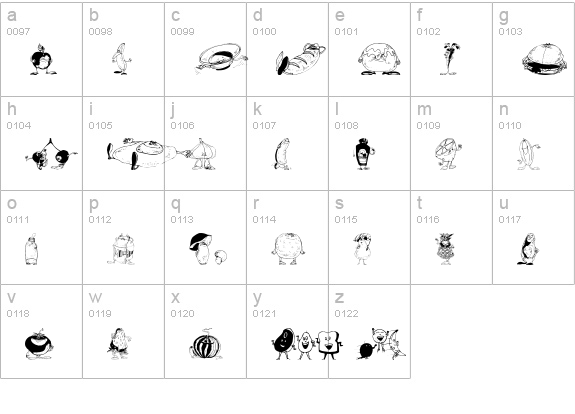
Yummi Font Details
Yummi font is a delightful and charming typeface that brings a touch of whimsy to any design project. With its playful curves and stylish letterforms, Yummi is perfect for adding a fun and friendly vibe to your creations. This versatile font is ideal for a wide range of applications, from branding and packaging to invitations and social media graphics. What makes Yummi font even more appealing is that it is available for free download at FontsMarket.com. This means that you can easily access this fantastic font without having to worry about any costs. So go ahead and give your projects a sweet and inviting look with Yummi font today!